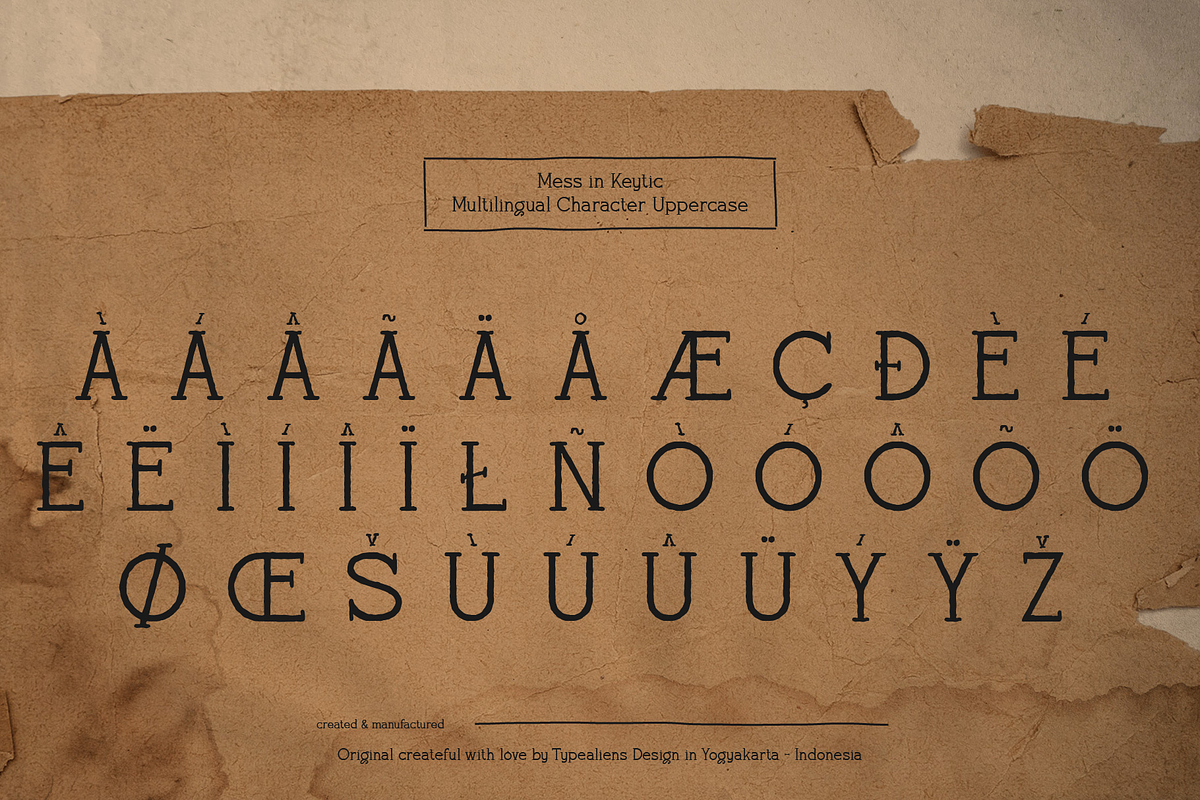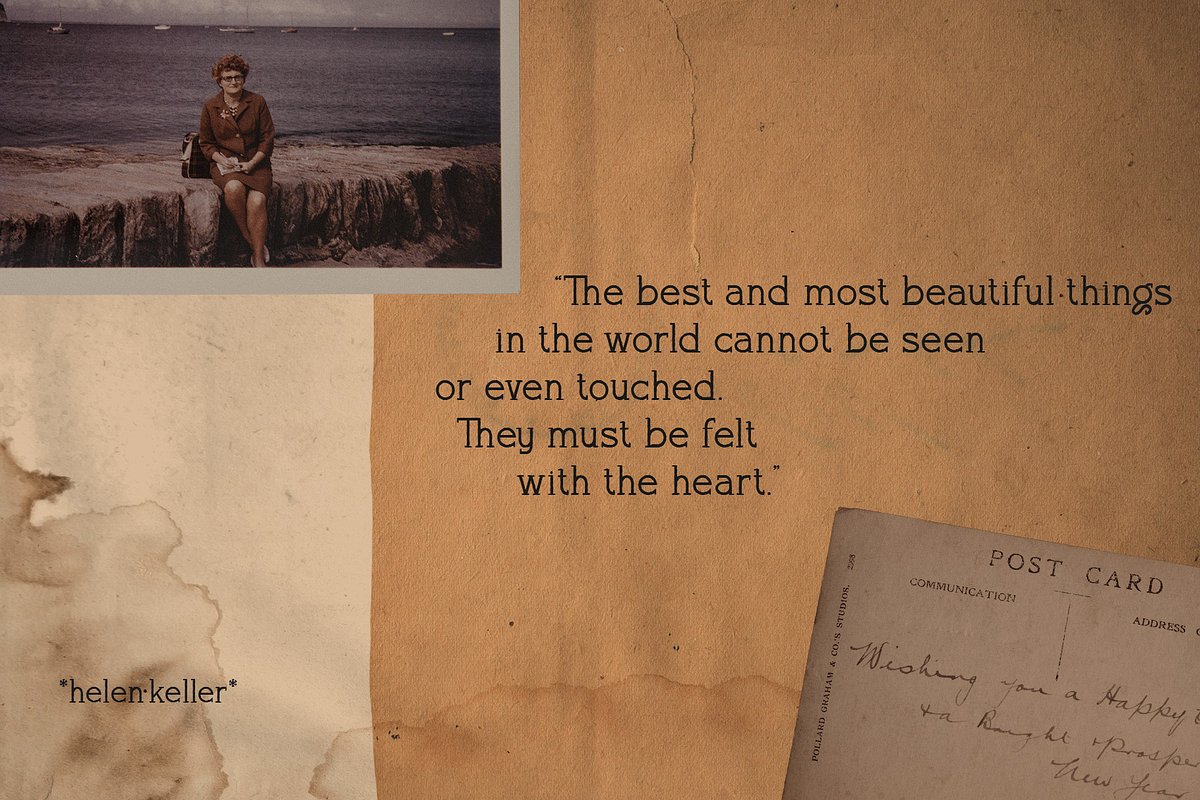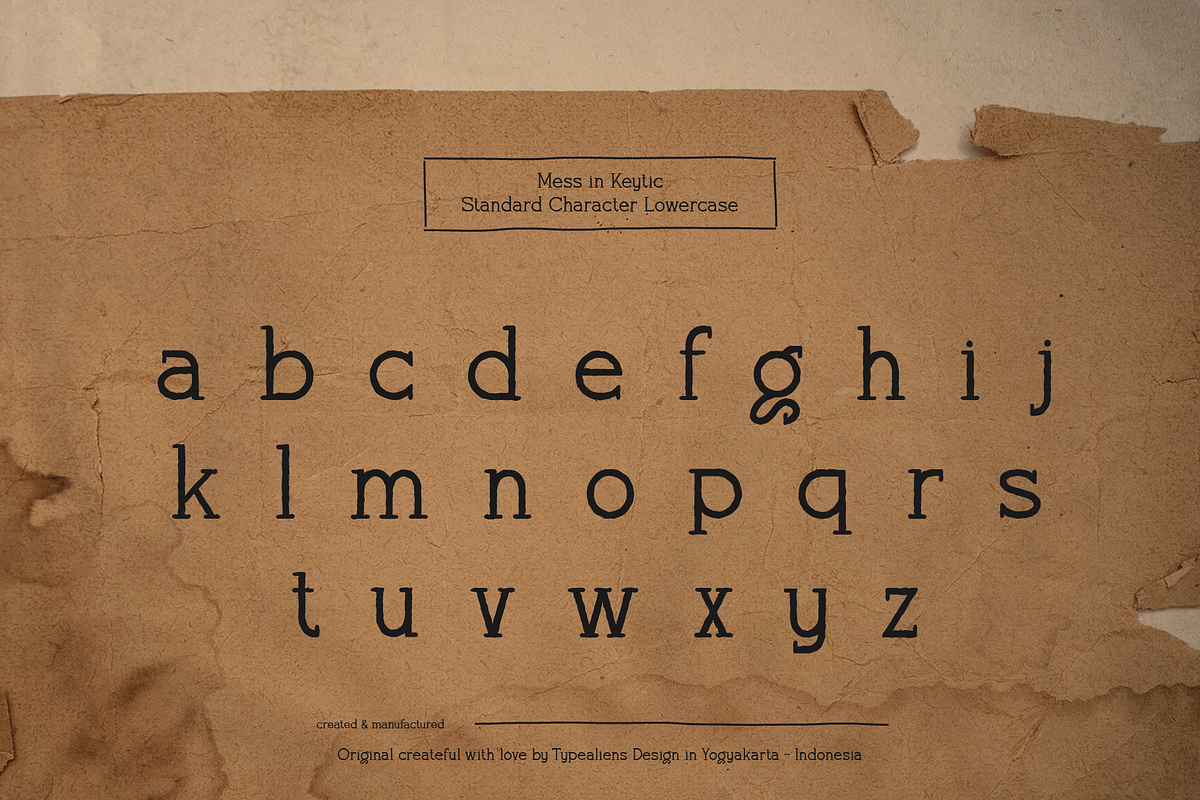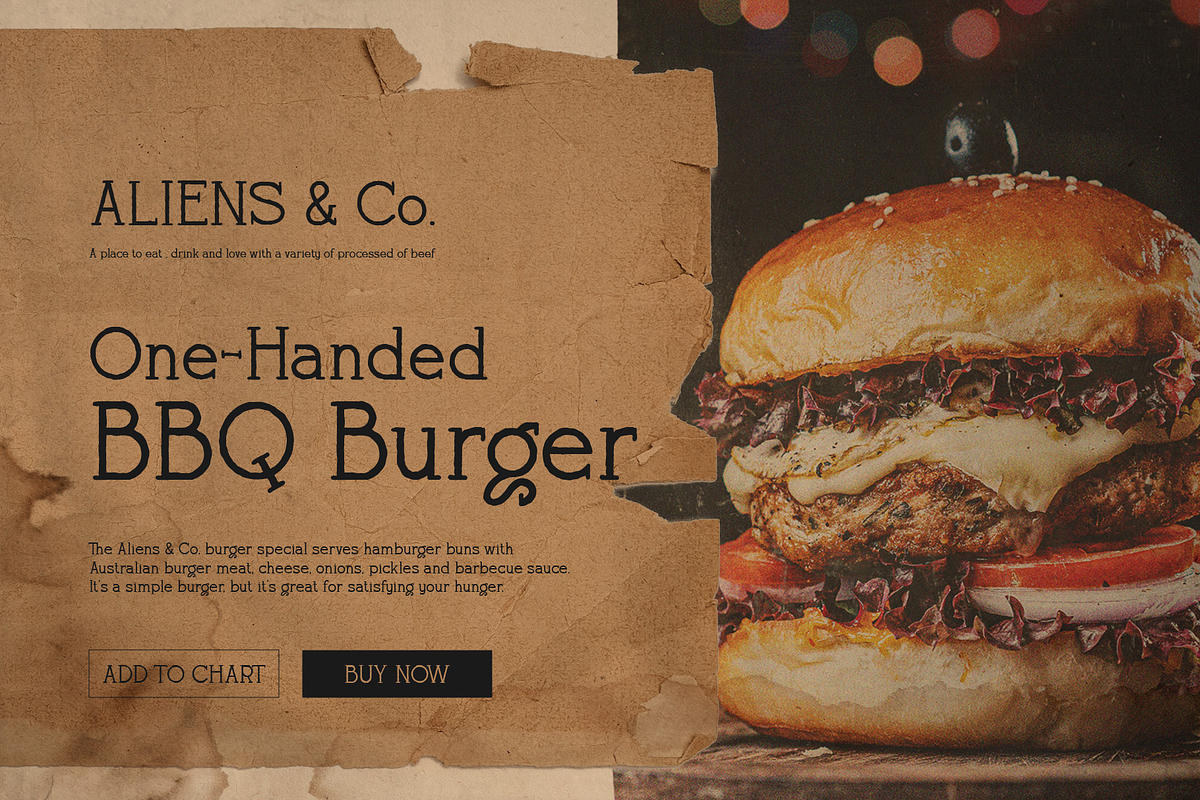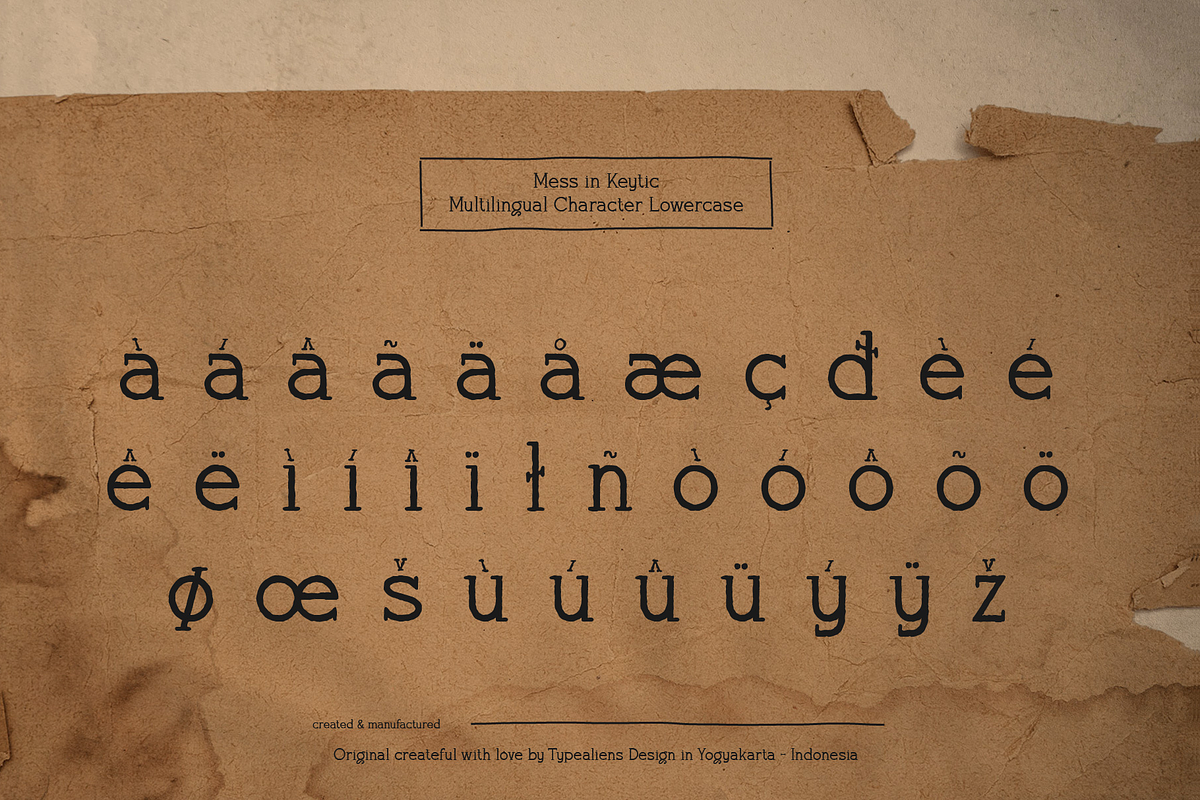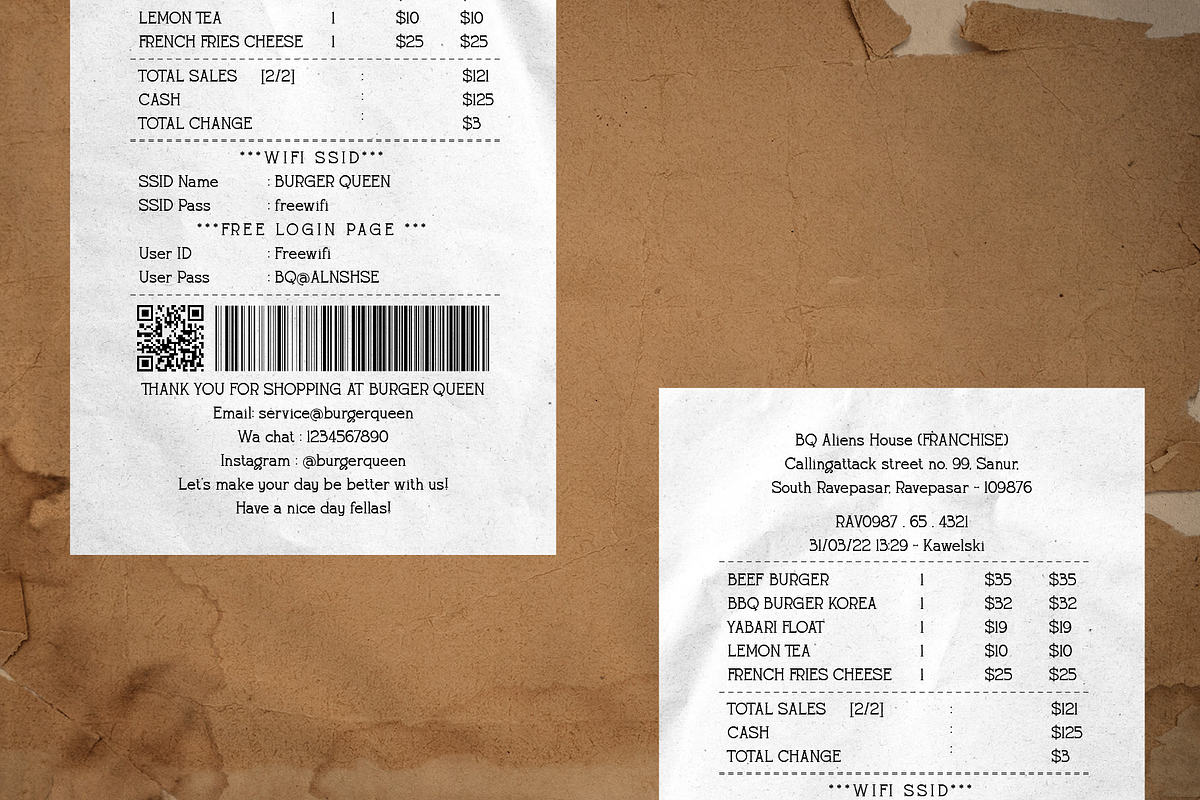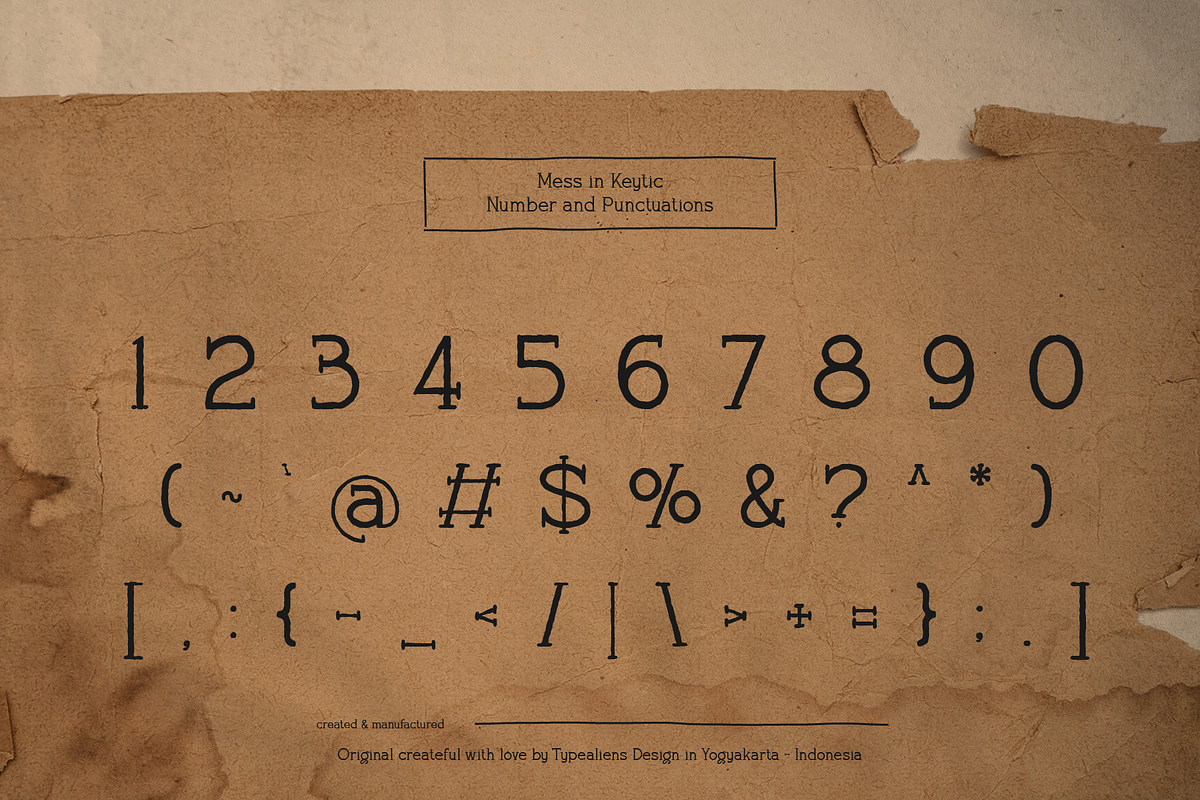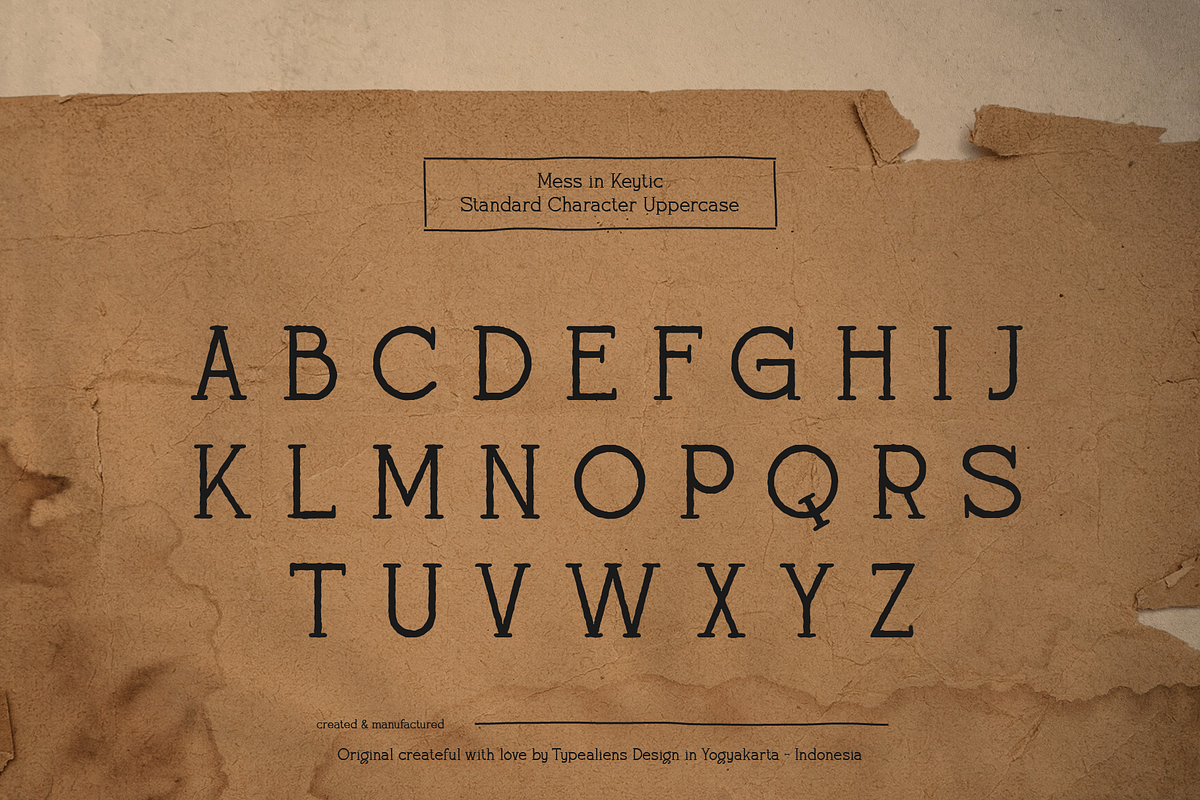
Mess in Keytic
MESS IN KEYTIC
Mess in Keytic is a classic font inspired by typewriter letters. This font can be used to create text or paragraphs, but is also great for creating titles on the cover of a magazine or headline in a newspaper.